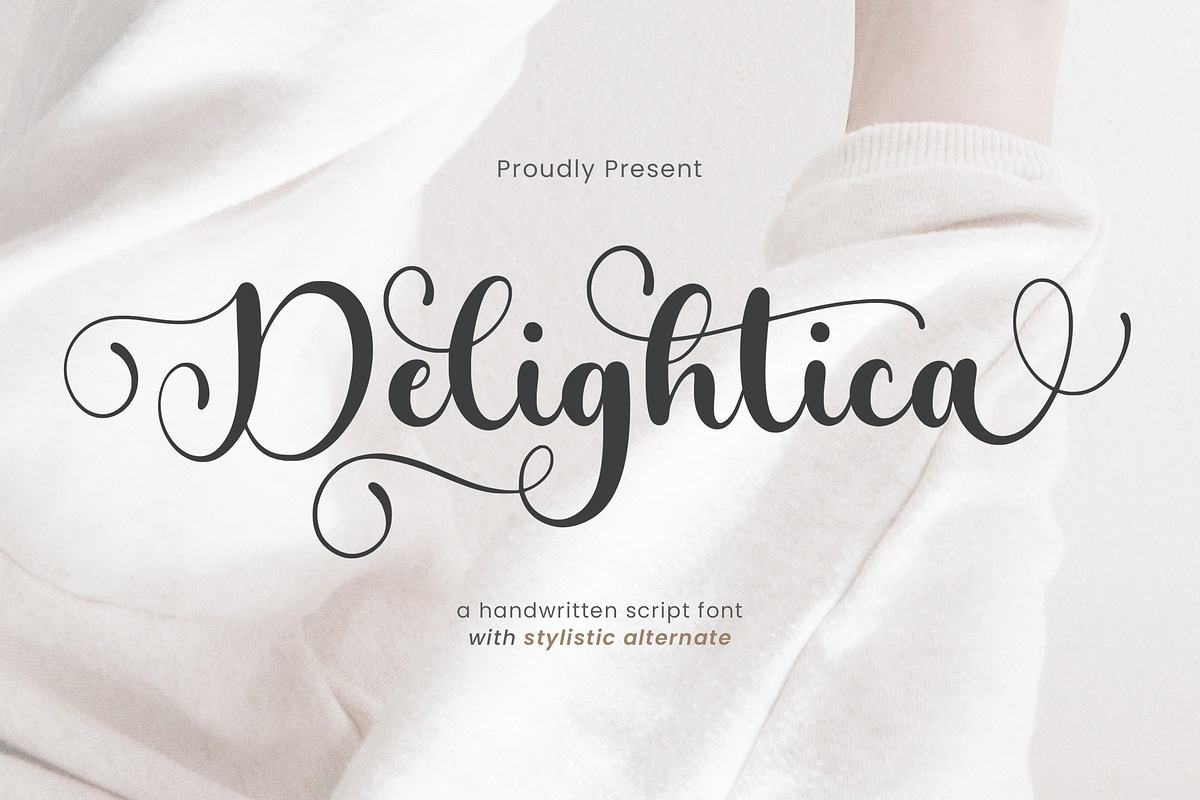
Delightica - Handwritten Script Font Free Download is a soft, elegant script font that captures the beauty of natural handwriting. With its flowing curves and smooth, feminine style, Delightica is ideal for wedding invitations, branding, social media graphics, product packaging, and any design that needs a graceful, personal touch.
Designed to feel both modern and romantic, Delightica delivers charm and sophistication in every stroke. It’s perfect for creatives who want to convey warmth, elegance, and a touch of whimsy in their typography.
This font includes uppercase and lowercase letters, numerals, punctuation, and multilingual support. It also features ligatures and stylistic alternates, giving you flexibility and creative control over your designs.